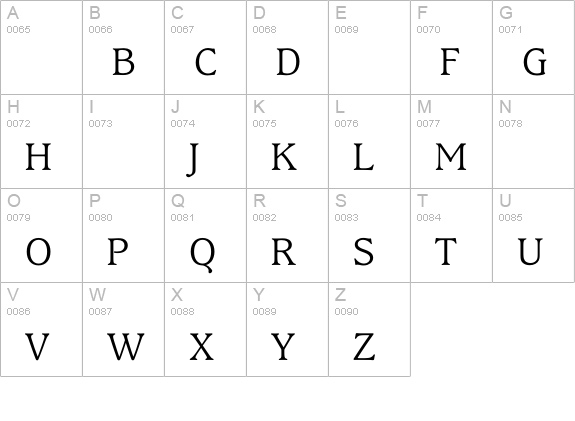
KingsrowLight Font Details
KingsrowLight is a visually striking font that effortlessly captures the essence of elegance and sophistication. With its clean lines and delicate curves, this font exudes a sense of modernity and grace. The slender letterforms create a harmonious balance between tradition and contemporary design, making it the perfect choice for various creative projects. One of the best aspects of KingsrowLight is that it is completely free. Yes, you read that right - you can download this incredible font without spending a penny. Thanks to FontsMarket.com, it is freely available to all typography enthusiasts and designers looking to add a touch of finesse to their work. Whether you're designing a logo, creating a stunning website, or putting together a captivating presentation, KingsrowLight will effortlessly elevate your project to new heights. Its versatility allows it to be used in a wide range of contexts, from branding to editorial design, ensuring that your message is communicated with utmost clarity and style. The attention to detail in KingsrowLight is evident in every letterform, as each stroke is meticulously crafted. The result is a font that is not only visually appealing but also highly legible. With its generous spacing and well-defined characters, KingsrowLight ensures that your text is easily readable, even at smaller sizes. So, why wait? Don't miss out on the opportunity to enhance your designs with the beauty and sophistication of KingsrowLight. Head over to FontsMarket.com today and download this exceptional font for free. Join countless designers who have already discovered the magic of KingsrowLight, and let your creativity soar to new heights.